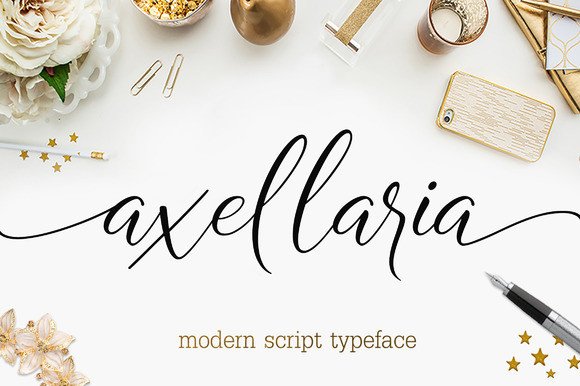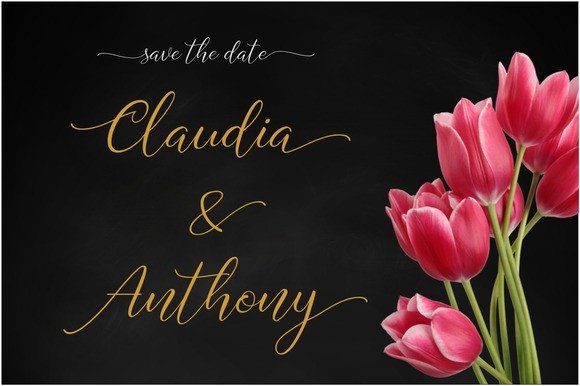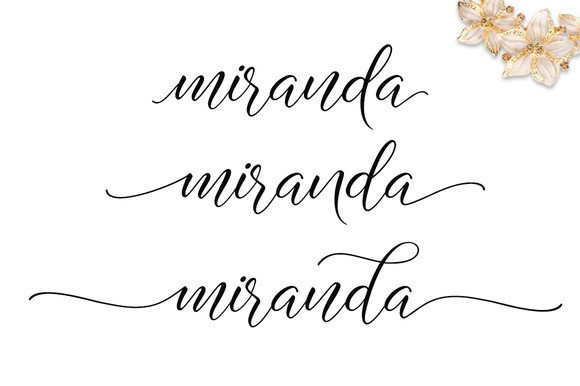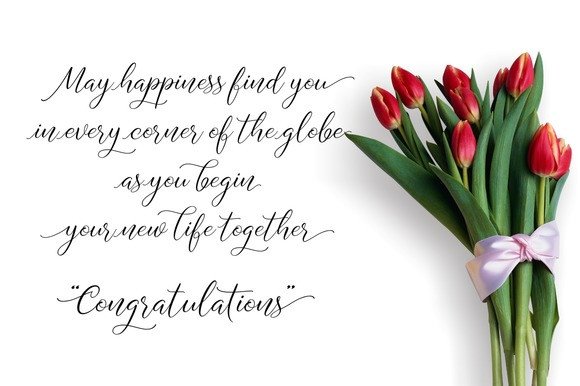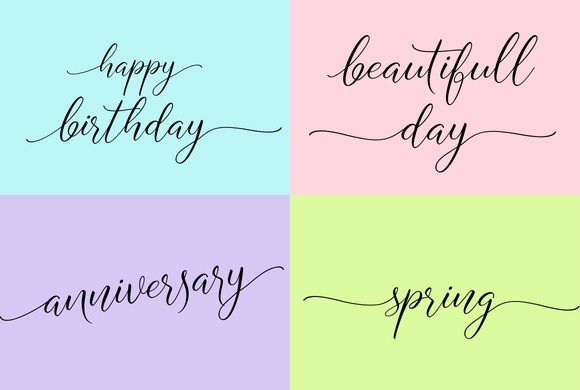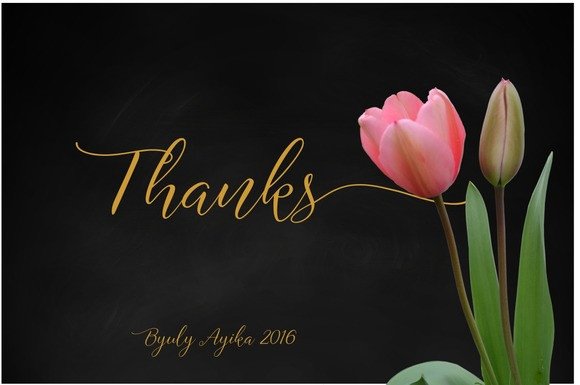
Axellaria Font
About Axellaria Font
Axellaria is a cute & fresh font.
With it’s decorative letters Axellaria will make any design stand out. The font is great for many purposes, such as signs, shirts and ofcourse invites and cards!